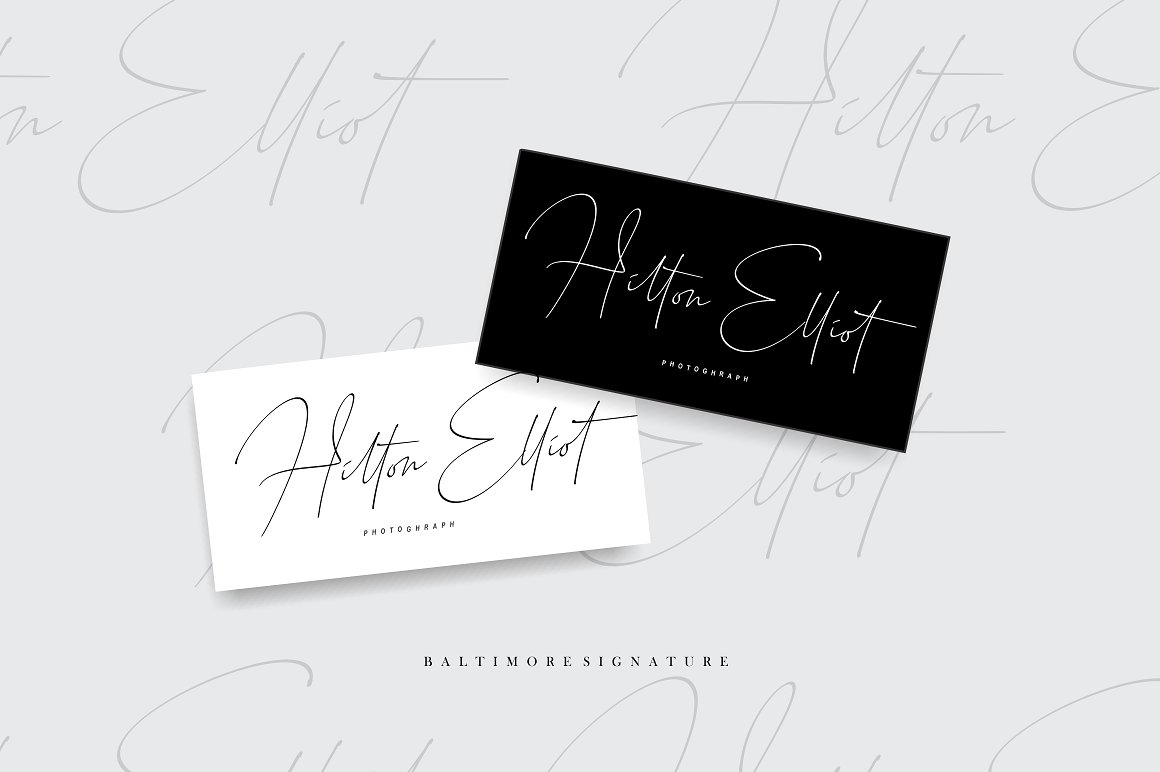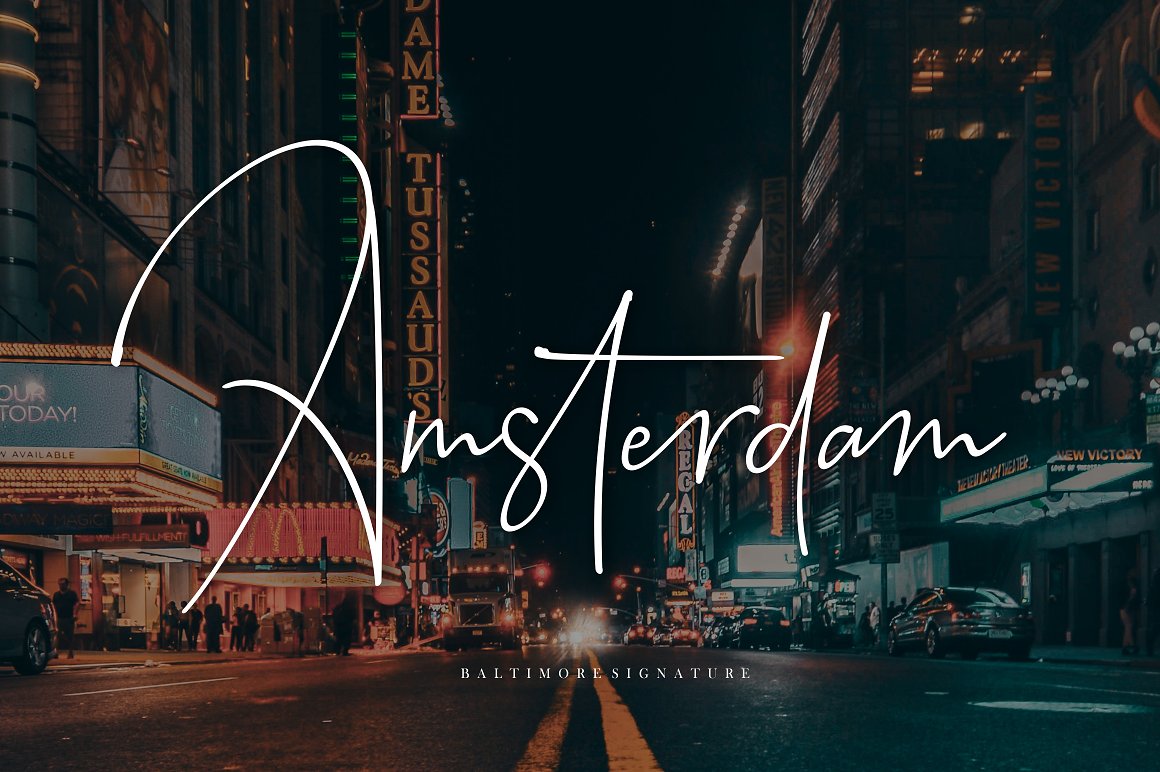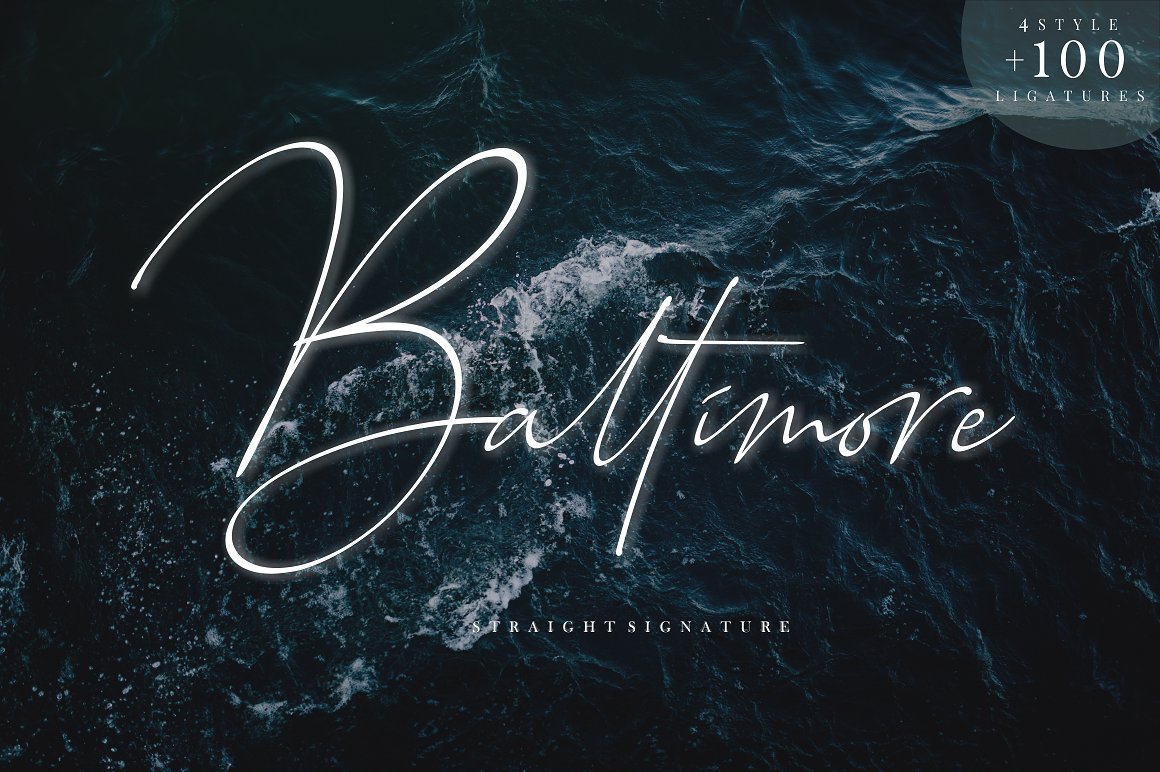
Baltimore Signature Font
A modernistic script font written with soft hand to produce a high quality font, designed and shared by Sronstudio. Introducing Bigstorm Font. Bigstorm is a unique hand made font that will capture the attention at glance. This font is perfect to be used as signature, headline, lettering quotes, wedding invitation, fashion, etc. It also comes in uppercase, lowercase, punctuations, symbols & numerals, stylistic set alternate, ligatures, etc also support multilingual.